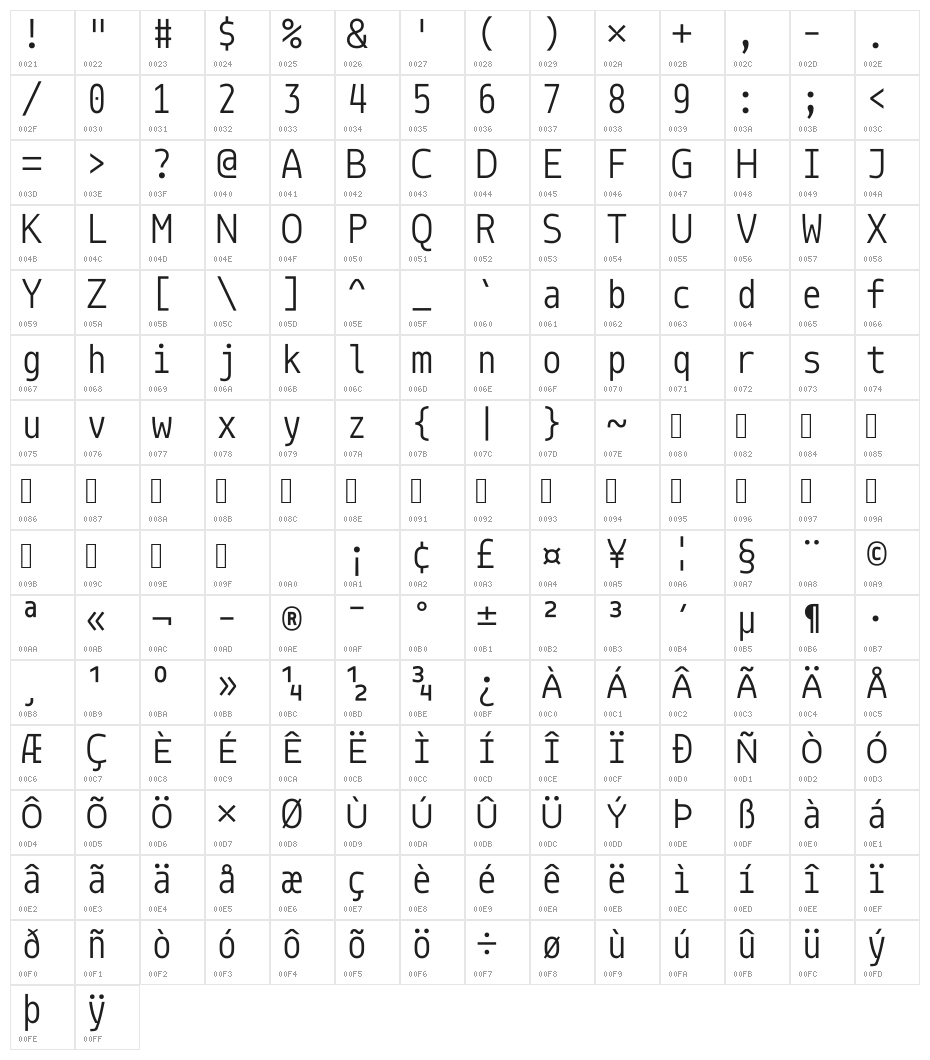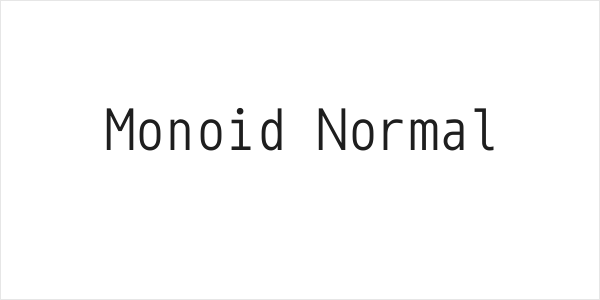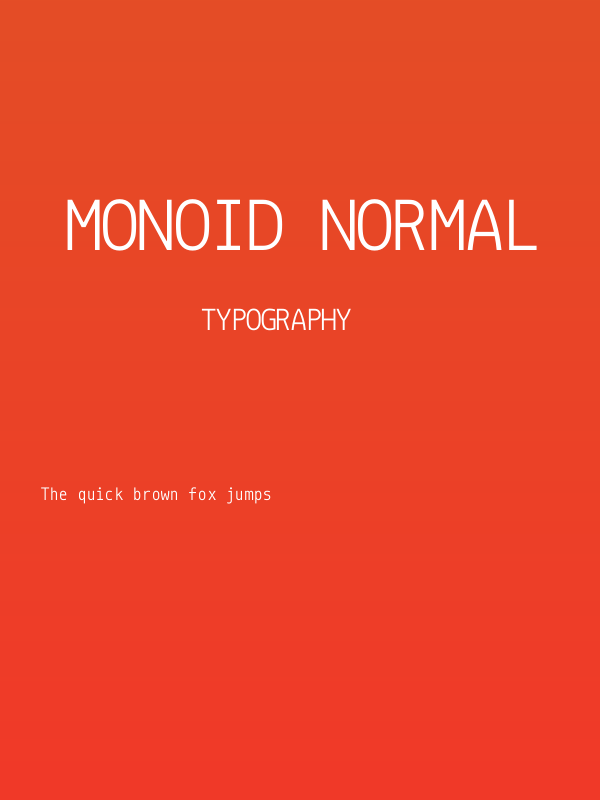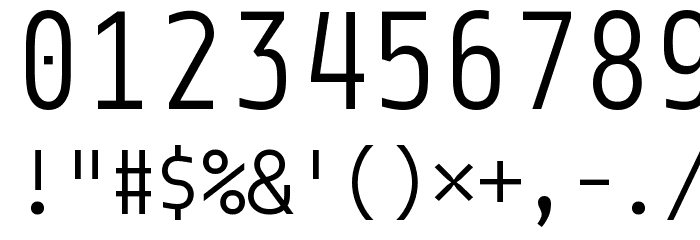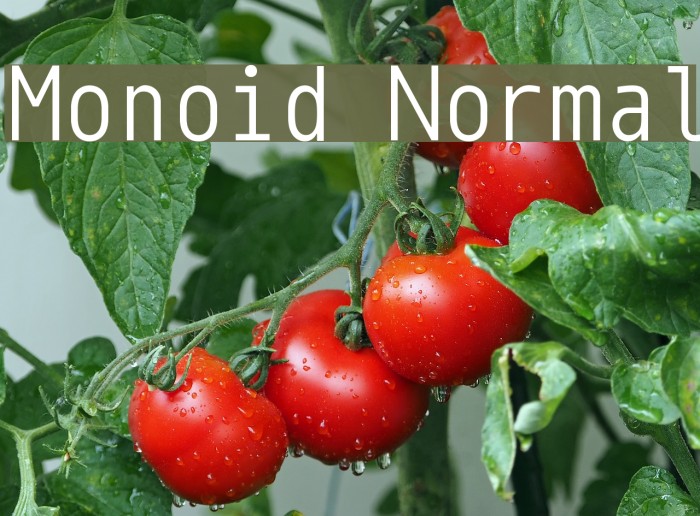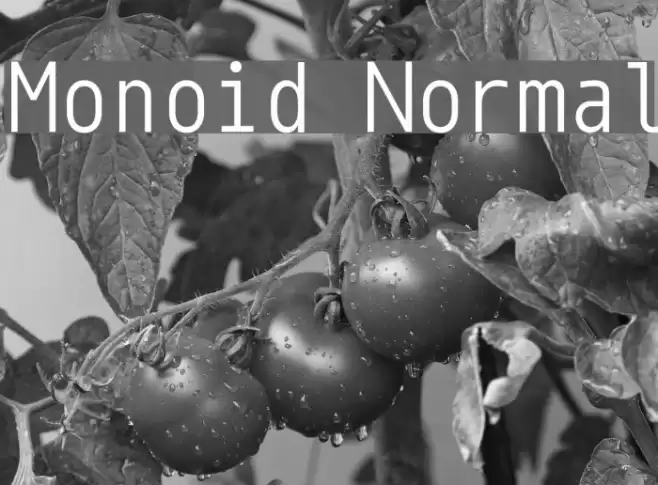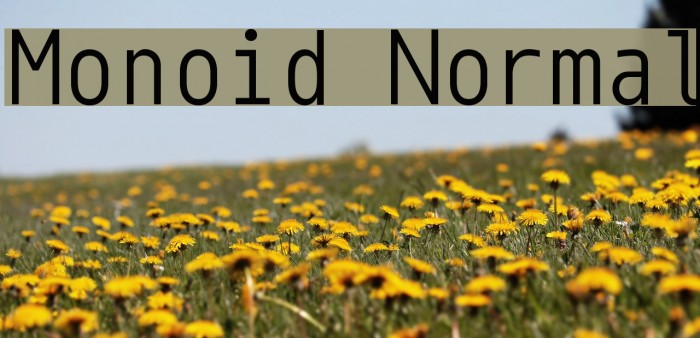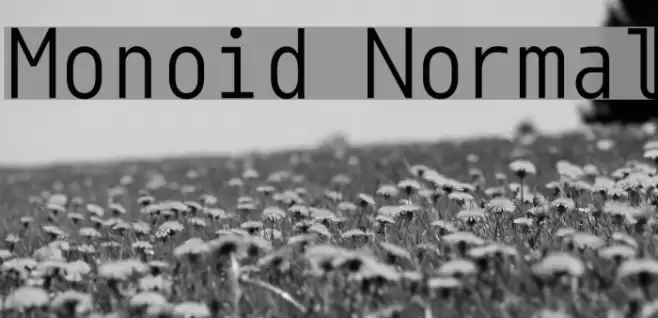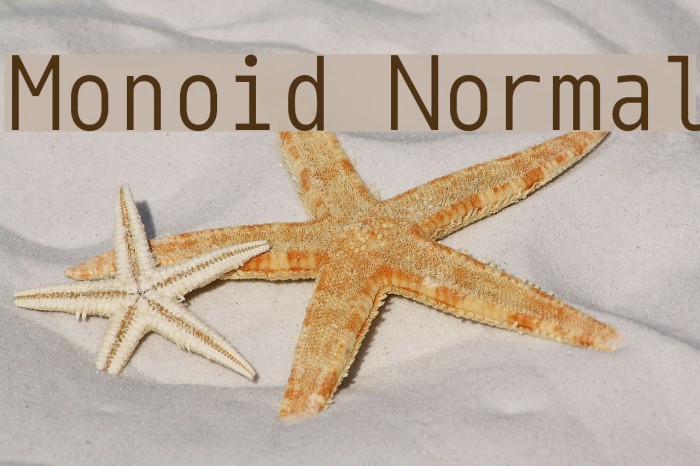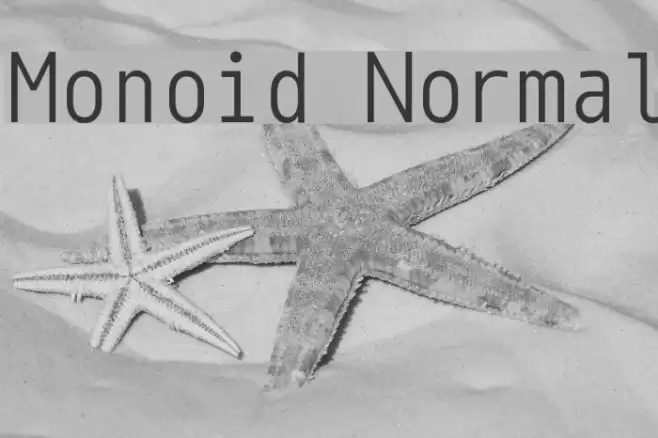
Monoid Normal Font
Monoid Normal Description
This font features a clean, modern design with a monospaced structure, ideal for coding and technical applications. Each character is evenly spaced, providing a uniform appearance that enhances readability. The uppercase letters are bold and assertive, while the lowercase letters maintain a consistent height, contributing to a balanced look. The numerals are clear and distinct, making them suitable for data presentation. Special characters are well-defined, ensuring clarity in various contexts. The overall style is minimalistic, focusing on functionality and precision.
| Proposed Projects | Ideal for coding environments, technical documentation, data presentation, and any project requiring precise alignment. |